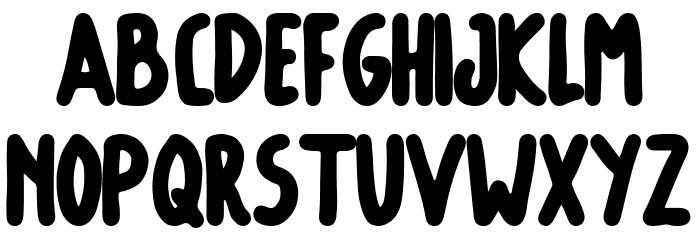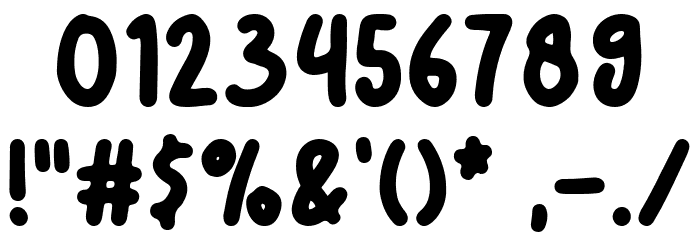
Monkey Pie Font
A playful, bold, and rounded font with a hand-drawn appearance, featuring thick strokes and a casual style.
Playful, bold, rounded hand-drawn font.
- Proposed Projects: Children's books, playful branding, casual posters.
- Overall Style: Casual, Playful
- Use Case: Headlines, Posters, Branding